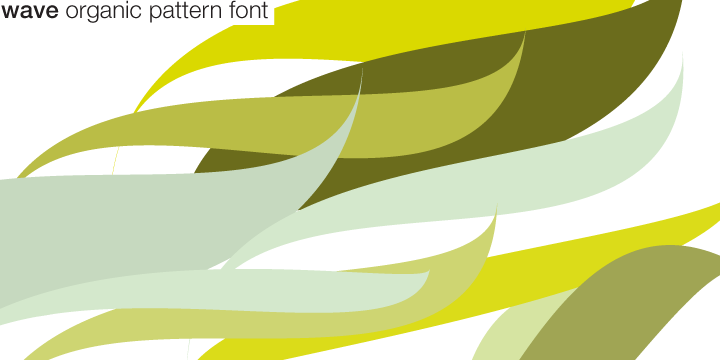
Wave™ is a pattern font consisting of 52 illustrations of dynamic wave arrangements which were inspired by Kapitza’s ongoing fascination with irregular arrangements and shapes found in nature and in man-made structures.
Wave™ is part of a brand new collection of custom designed fonts which were created and utilized in Kapitza’s pattern book Organic.